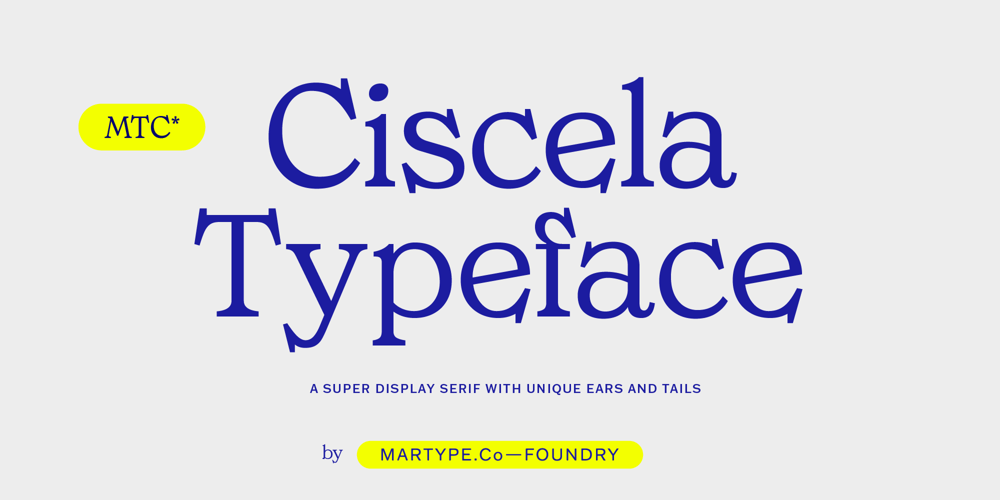
MTC Ciscela
MTC Ciscela font
MTC Ciscela Font Family was designed by Umar Al Farouq and published by Martype co. MTC Ciscela contains 1 styles and family package options. Introducing MTC Ciscela: A Minimalist Serif with Unique TailsDiscover the elegance of simplicity with MTC Ciscela. Crafted for those who appreciate the finer details, this serif font blends classic sophistication with modern minimalism. Each character is meticulously designed to bring a touch of refinement to any project. Timeless Elegance: Balances traditional serif elements with a clean, contemporary twist. Versatile Application: Perfect for branding, editorial design, and digital projects. Distinctive Personality: Adds a unique flair serif to your work while maintaining readability and grace. Let MTC Ciscela be the subtle yet impactful voice of your next creative endeavor. Transform your text into a statement of style and sophistication.